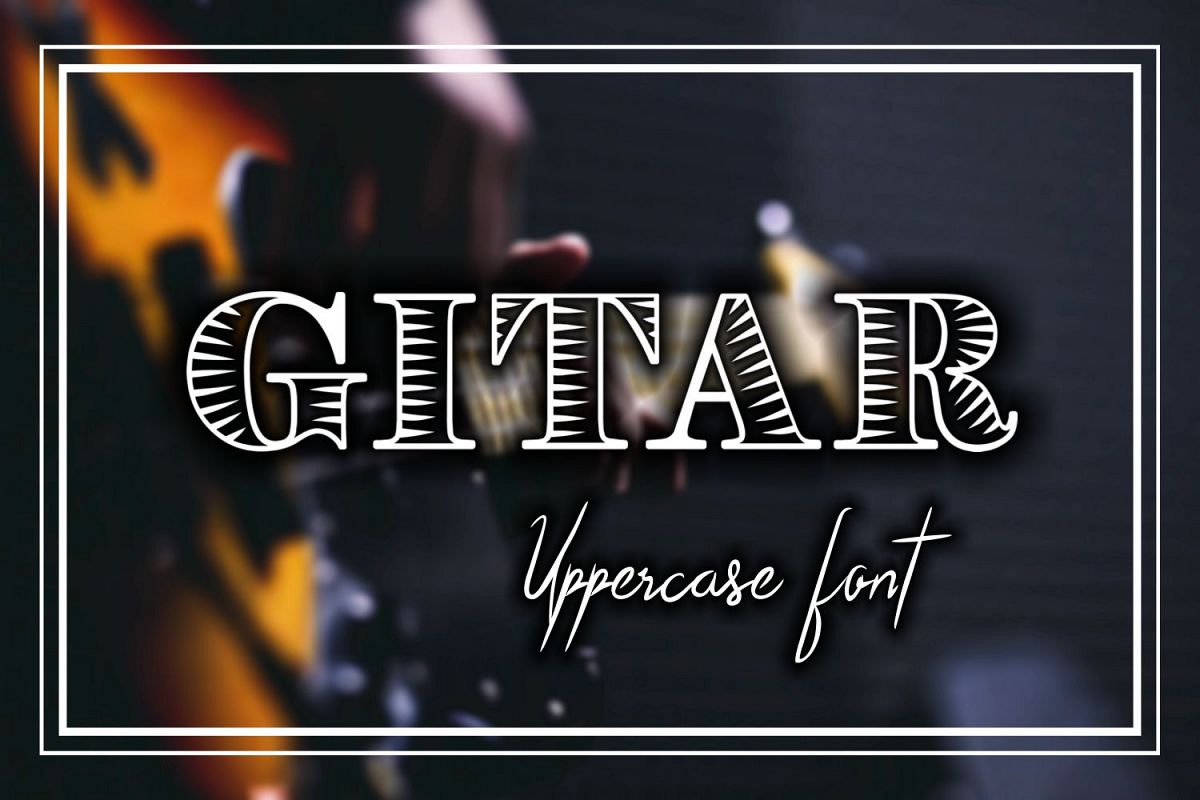
Gitar
Gitar is a carefully crafted decorative font, suitable for logo design, branding and craft projects such as engraving, laser cut, cricut, silhouette etc.